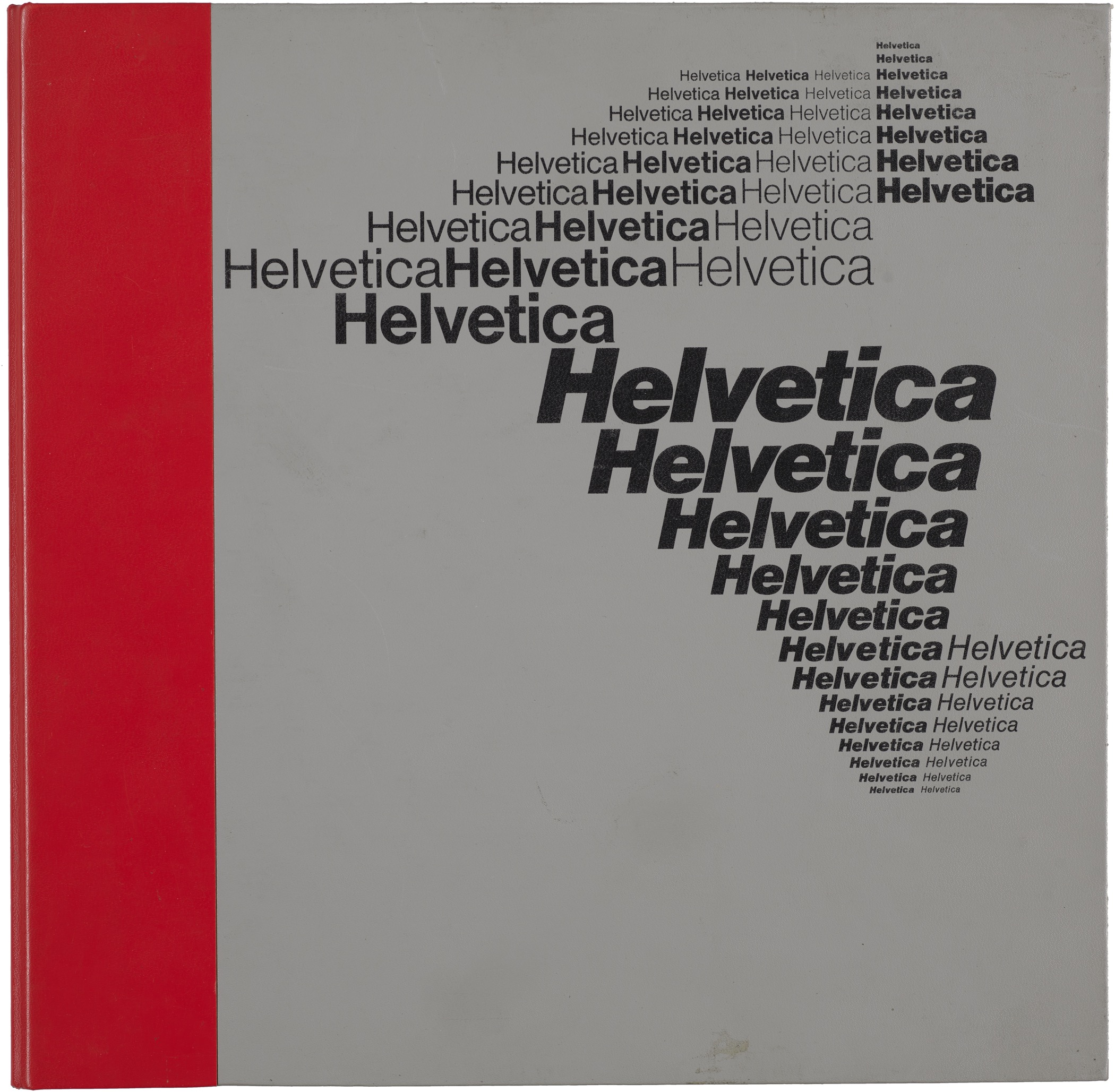
10 × 10 for 10: Ten years of Letterform Archive. One hundred objects of typographic design.
Since opening in 2015, Letterform Archive has grown from a 15,000-item private collection, to a publicly accessible resource of over 100,000 objects. The works of lettering, typography, and graphic design span movements and continents, but what ties everything together is text, the essential material of culture. This common thread lets anyone—from type nerds to poets, coders to cooks—have an entry point into the collection. Our dedication to radical access has made the Archive a thriving community hub, welcoming thousands of visitors from more than 40 countries, and offering an unparalleled opportunity to engage directly with masterpieces of design.
Never before has such a wide range of the Archive’s collection been viewable in one room.
In celebration of our 10th anniversary, Letterform Archive proudly presents a singular exhibition highlighting our most beloved artifacts, thoughtfully curated by the entire Archive team. 10 × 10 for 10 fills our jewel-box gallery with 100 objects selected by our 10 dedicated teams, offering an extraordinary glimpse into every corner of the Archive, through the lens of those who steward its inspiring holdings. Never before has such a wide range of the collection been viewable in one room. The show traverses centuries of graphic art, from a cuneiform tablet to contemporary artists’ books, from icons of modernist typography to everyday ephemera. Almost all of the items on display arrived at the Archive after we opened, reflecting the expansion of our curatorial scope and the generosity of our community.
Calligraphy Masters
Saunders’ substantial collection included renaissance writing manuals, avant-garde typography, original hand-lettering, mid-20th-century modernism, all the way back to the earliest form of writing in clay. He was drawn to letterform and design innovation, a standard that continues to guide the Archive’s curatorial team, which now includes three other members: Stephen Coles, Kate Long Stellar, and Jon Sueda.
“As a kid, viewing the pen strokes of masters up close unlocked a new way to perceive letters. I wanted everyone to have that experience.” — Rob Saunders
As the collection grew—mostly through the archives and libraries of other designers and collectors—we shifted our focus to people, places, and scripts that are underrepresented in the Western design canon. Many of the selections in 10 × 10 for 10 demonstrate that growing diversity. The work hails from nearly 50 different locales, from Tokyo to Kashmir, Amsterdam to México City.
Old and New, Large and Small
The Archive teams who selected themed groupings for the exhibition are Admin/Finance, Collections, Curatorial, Education, Exhibitions, Marketing, Publishing, Type West Faculty, and Docents. Their 90 selections join Saunders’s 10 items that represent what was here when we opened. Just like the staff picks at a record shop or bookstore, their descriptions reveal how everyone at the Archive has a personal relationship to something in the collection.
At our decade milestone, the Archive is reflecting on the principle of hospitality that connected us with other people who care about great design. “The generosity and access I experienced at the Newberry is the model I had in mind when we transformed my home and collection into Letterform Archive,” said Saunders. “When we say we’re open to anyone who loves letters, we mean it—no matter who you are, what you do, or where you come from.”
Highlights from 10 × 10 for 10
Throughout the year, we’ll accompany the exhibition with a 10th Anniversary Symposium of events that adds context to the objects in the show, tells the story of the Archive’s development, and opens dialogs with artists, designers, and educators on the role of the archive in their work.